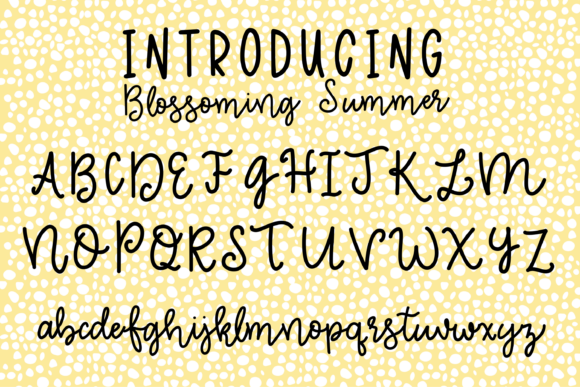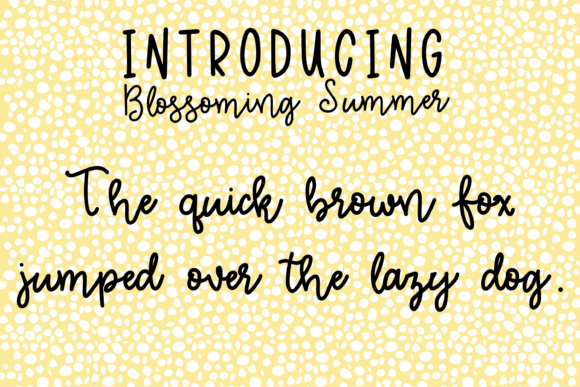
Blossoming Inspiration for Your Next Design Project
There’s something magical about the first warm rays of sunshine on a summer morning. The smell of fresh cut grass, the chirping of birds, and the gentle breeze all combine to create the perfect atmosphere for creativity to bloom. As designers, we’re always on the lookout for that spark of inspiration that sets our next project off on the right foot.
For many of us, that spark comes in the form of a beautiful font. And that’s where the Blossoming Summer Font comes in – a sweet and fun handwritten font with a bold feel that’s sure to bring a smile to your face. This modern charm is perfect for capturing the carefree spirit of summer, and its versatility makes it a valuable addition to any designer’s toolkit.
Blossoming Summer Font Key Features
- Font Size: 7,000+ glyphs, including a wide range of characters for multilingual support
- Unique Characteristics: Hand-drawn design with a whimsical, floral theme, perfect for summer-themed projects and designs
- Font Style: Script and Casual font styles available, with a variety of ligatures and swashes for added flair
Blossoming Summer Font Review
I recently had the chance to work with the Blossoming Summer Font, and I’m excited to share my honest review with you. ✨ Here are the things that I think really stand out:
- ✨ Elegant and whimsical feel: The Blossoming Summer Font has a delicate, floral vibe that’s perfect for summer-themed designs, wedding invitations, or any project that needs a touch of romance.
- ✨ Wide character set: The font includes a comprehensive set of characters, including uppercase and lowercase letters, numbers, and punctuation marks, making it easy to use in a variety of contexts.
However, I did encounter a few limitations ⚠️:
- ⚠️ Limited legibility at small sizes: While the font looks beautiful at larger sizes, it can become difficult to read at smaller sizes, which may be a problem for projects that require text to be displayed in a compact format.
- ⚠️ Limited font weights: The font only comes in a few weights, which may limit its versatility in certain design contexts.
Overall, I think the Blossoming Summer Font is a lovely addition to any designer’s toolkit. While it has its limitations, its elegant feel and customization options make it a great choice for projects that require a touch of whimsy and romance.
To get the most out of the Blossoming Summer Font, try using it in conjunction with pastel colors and floral patterns. You can also use it to create a whimsical and playful feel in your designs.
The Blossoming Summer Font is perfect for:
- Summer-themed invitations and party decor
- Floral-inspired wedding stationery and decor
- Children’s book illustrations and design